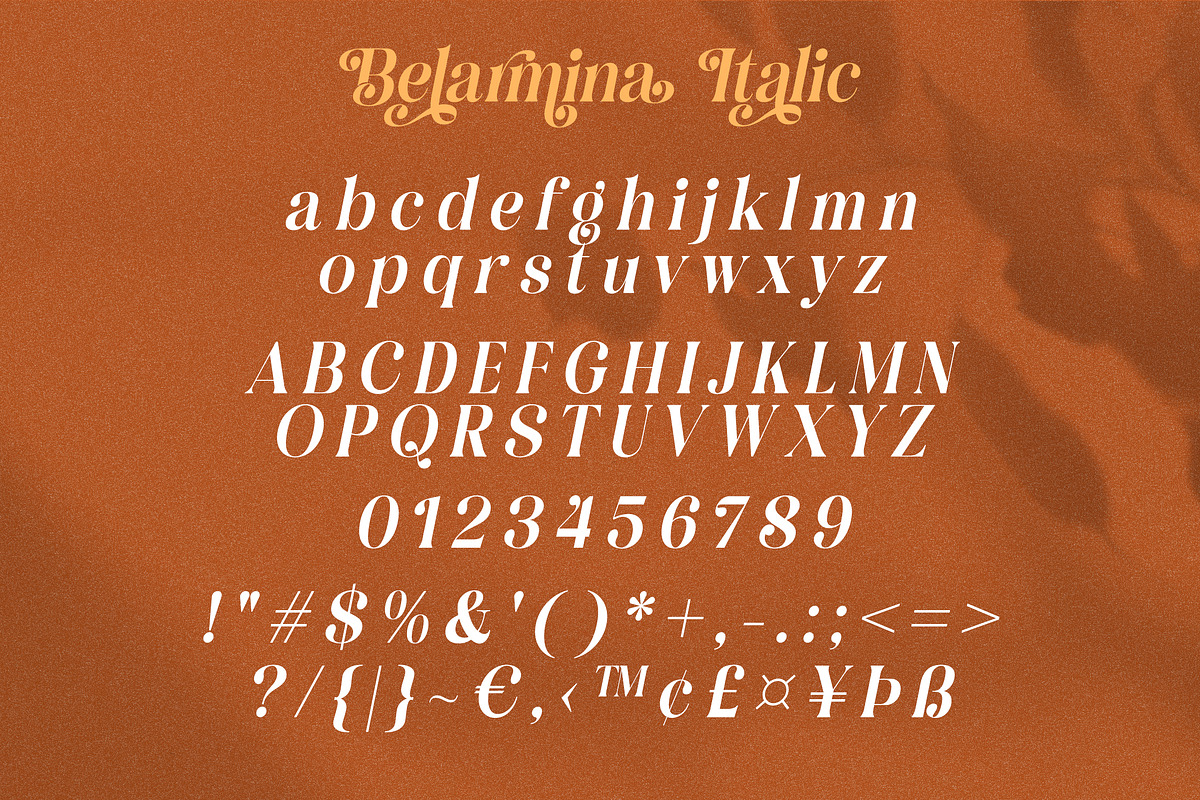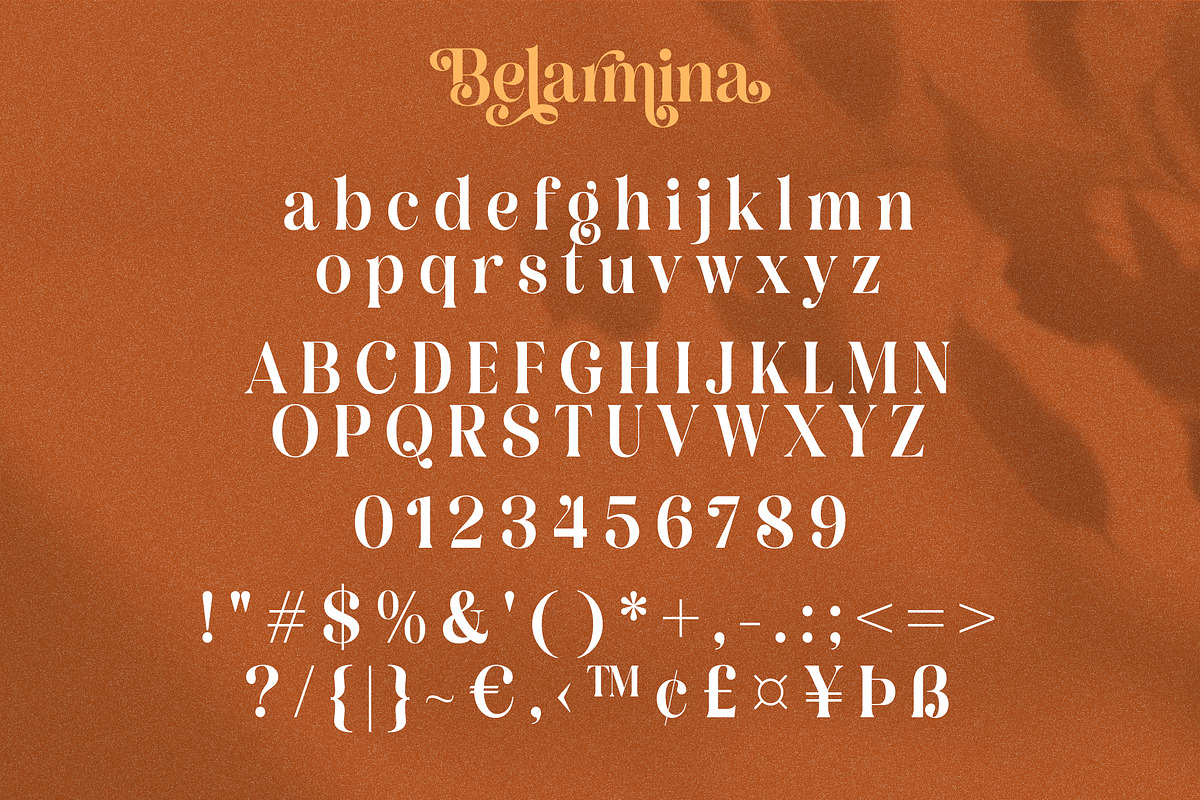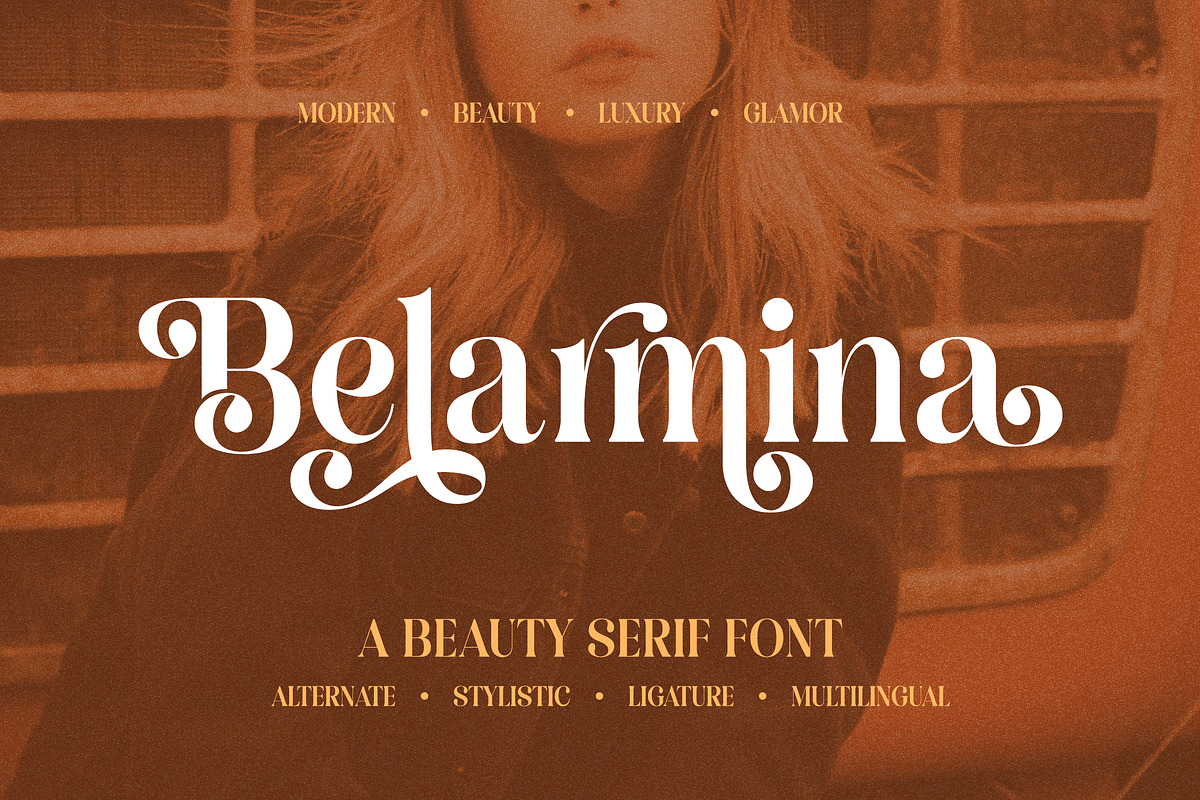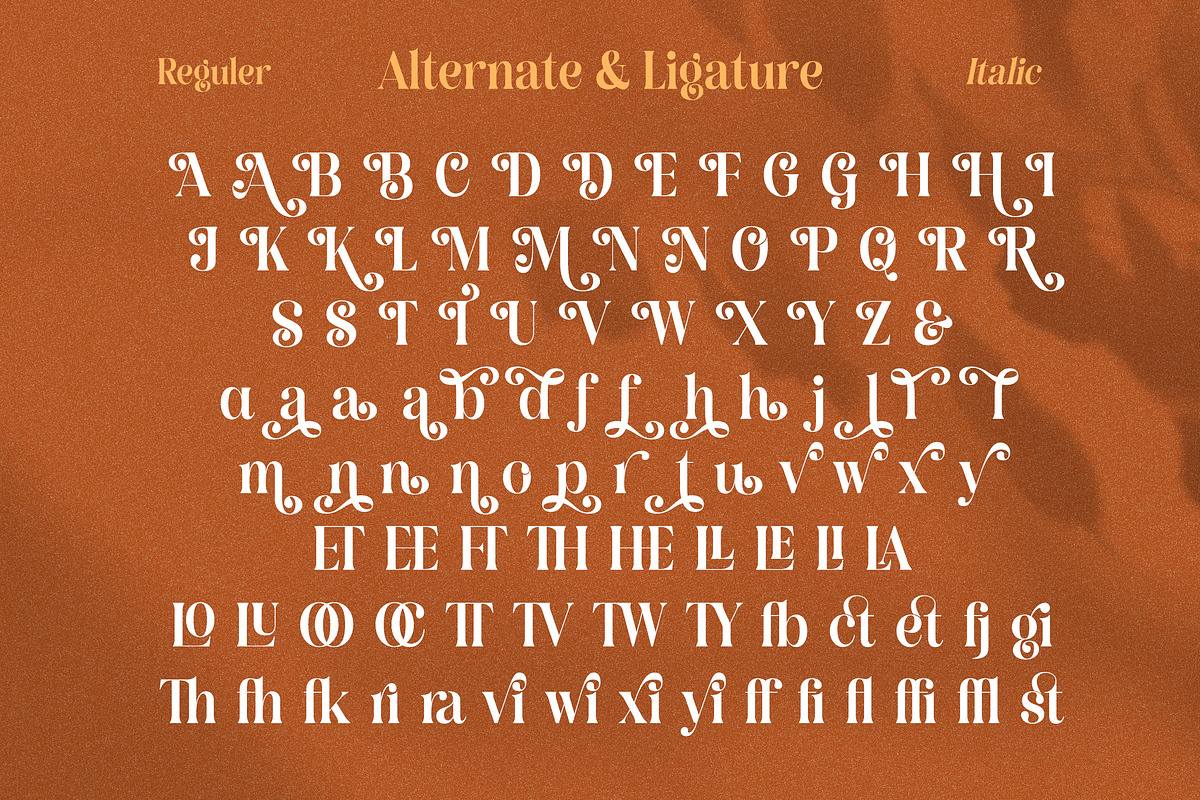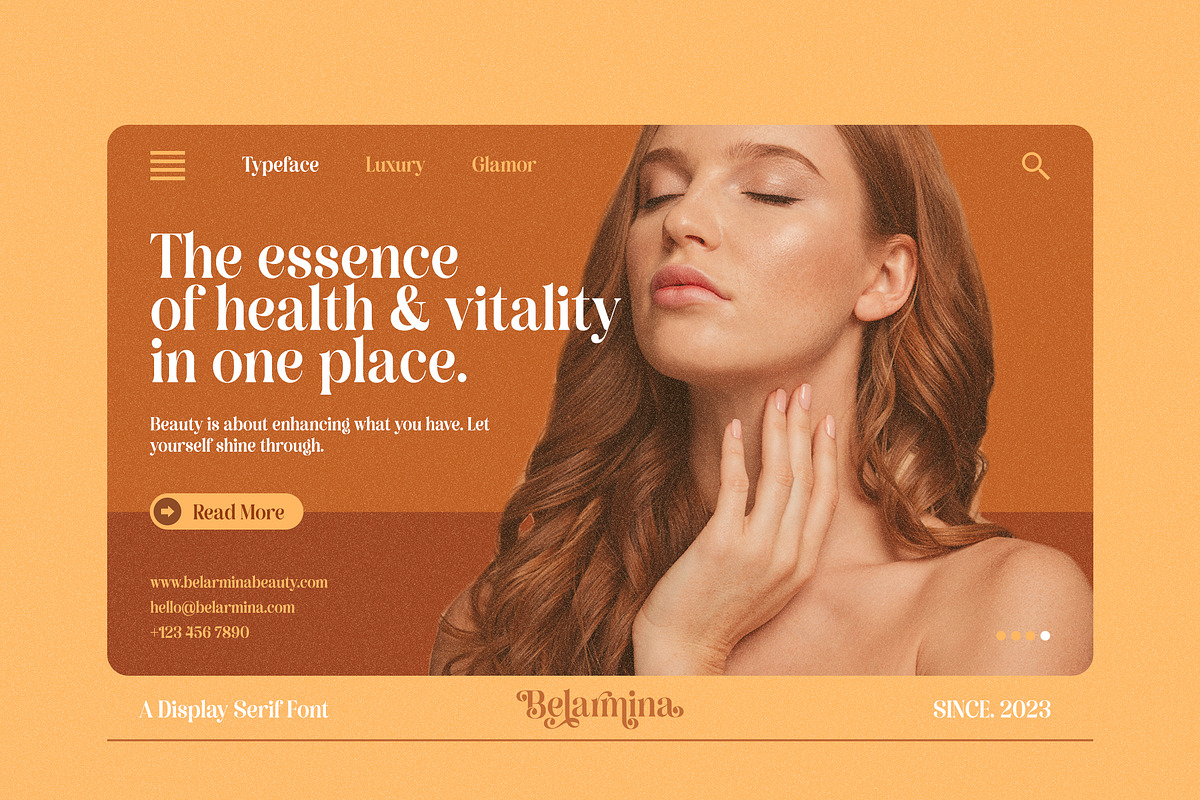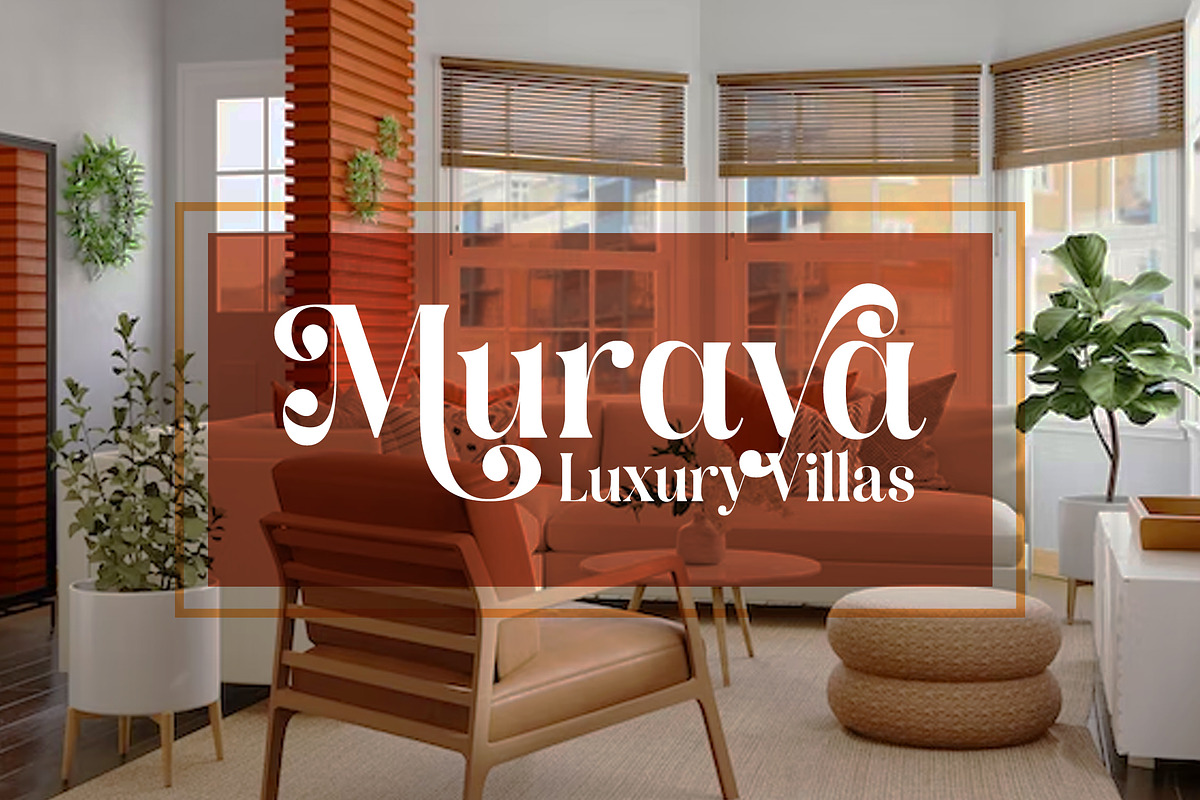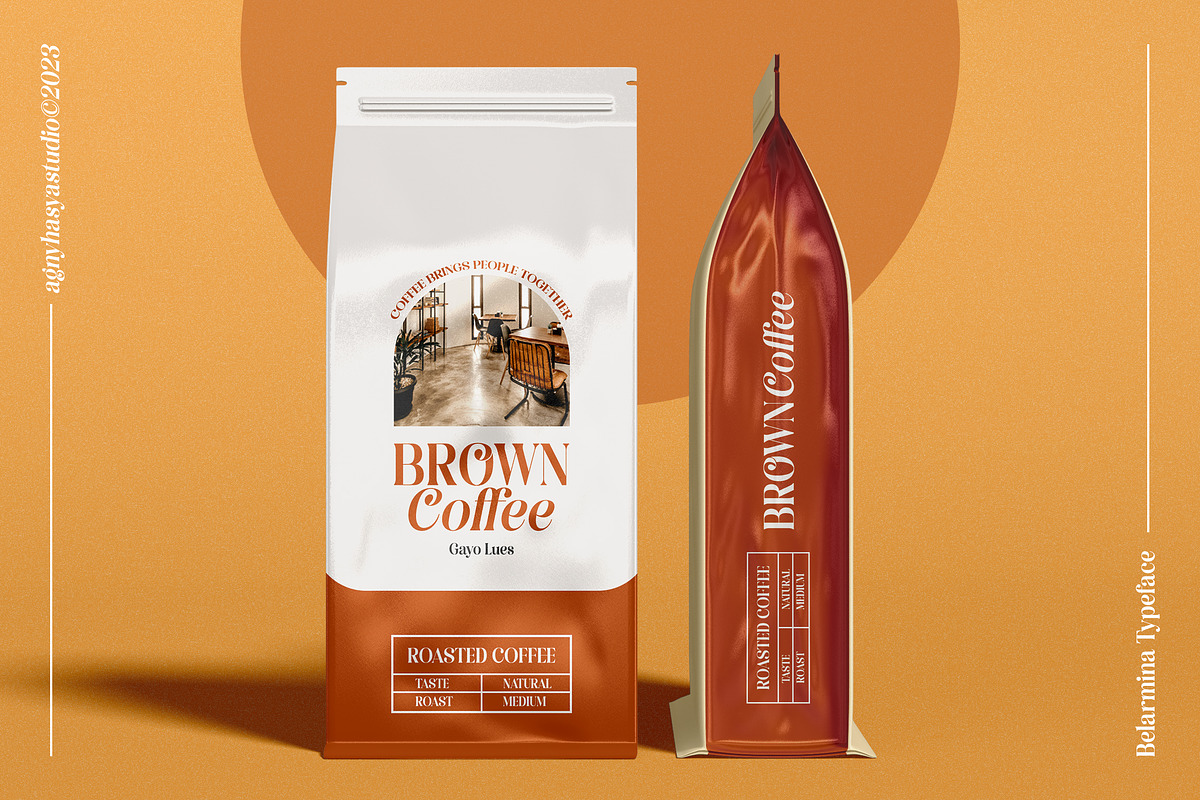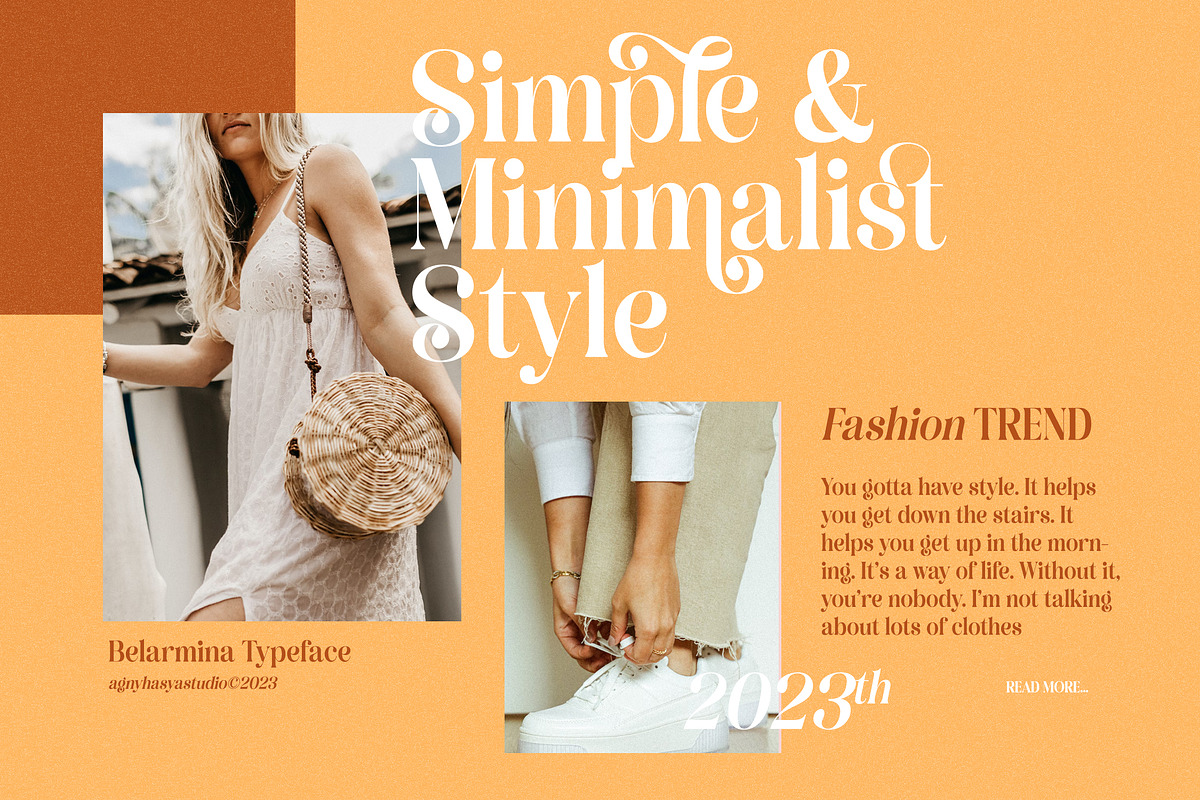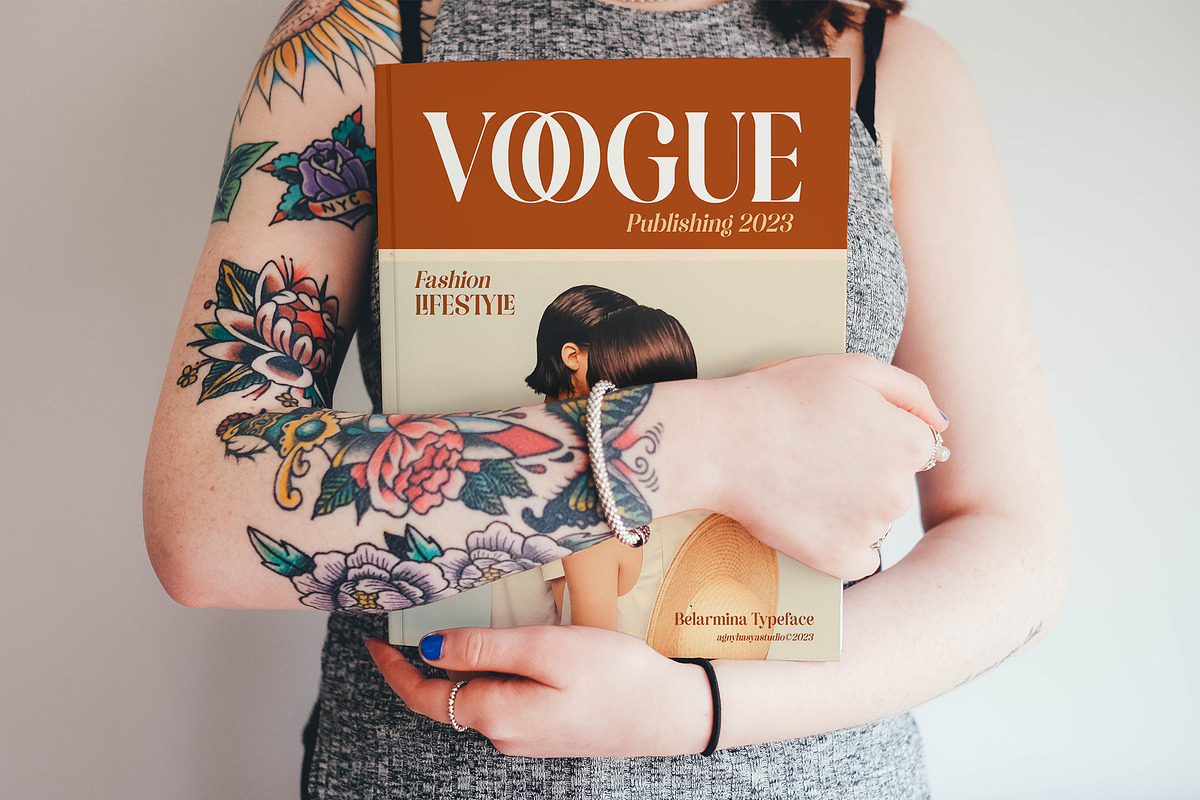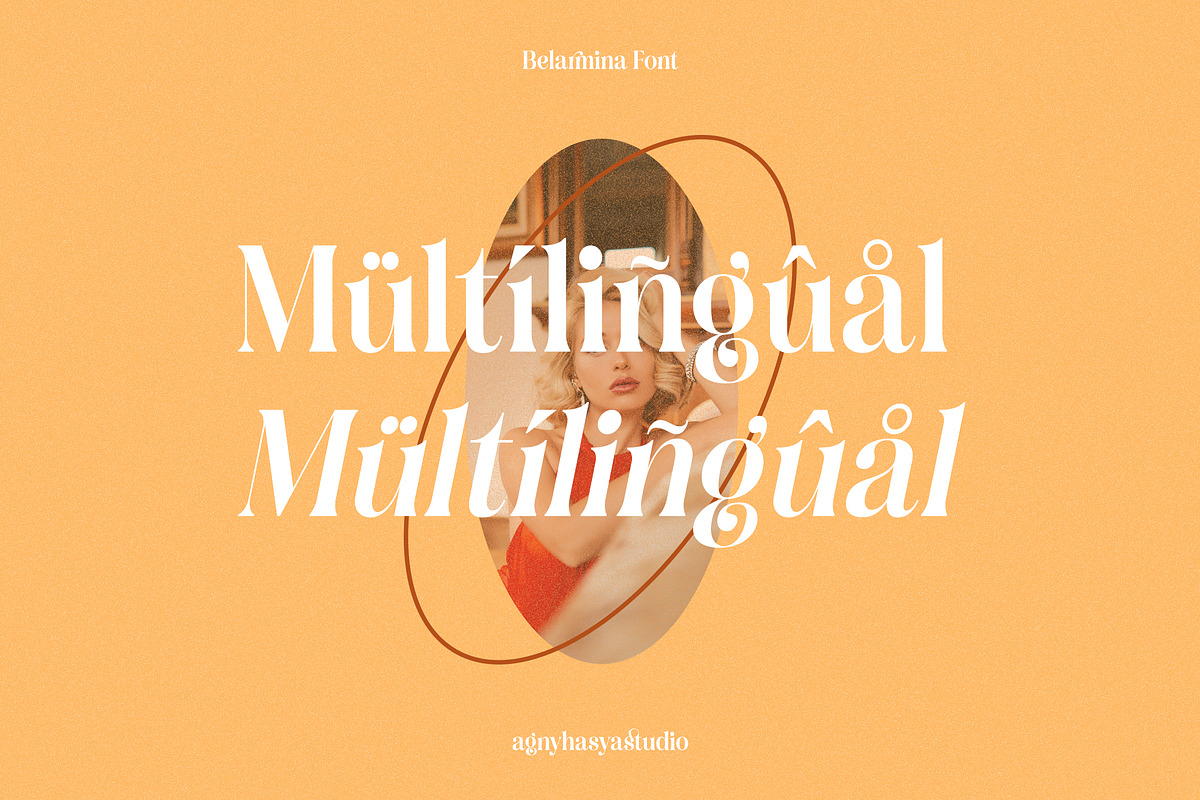
Belarmina - A Beauty Serif Font
Belarmina is a Modern & Beauty Serif Display Font created with 2 (two) styles (regular & italic), and glyph variations like alternates and ligatures. Combine it and make your perfect typography design!
Perfect for your design projects like logos, branding, advertising, product designs, stationery, magazine designs, book/cover title designs, photography, art quotes, wedding designs, fashion designs, special events, labels, product packaging, and more.